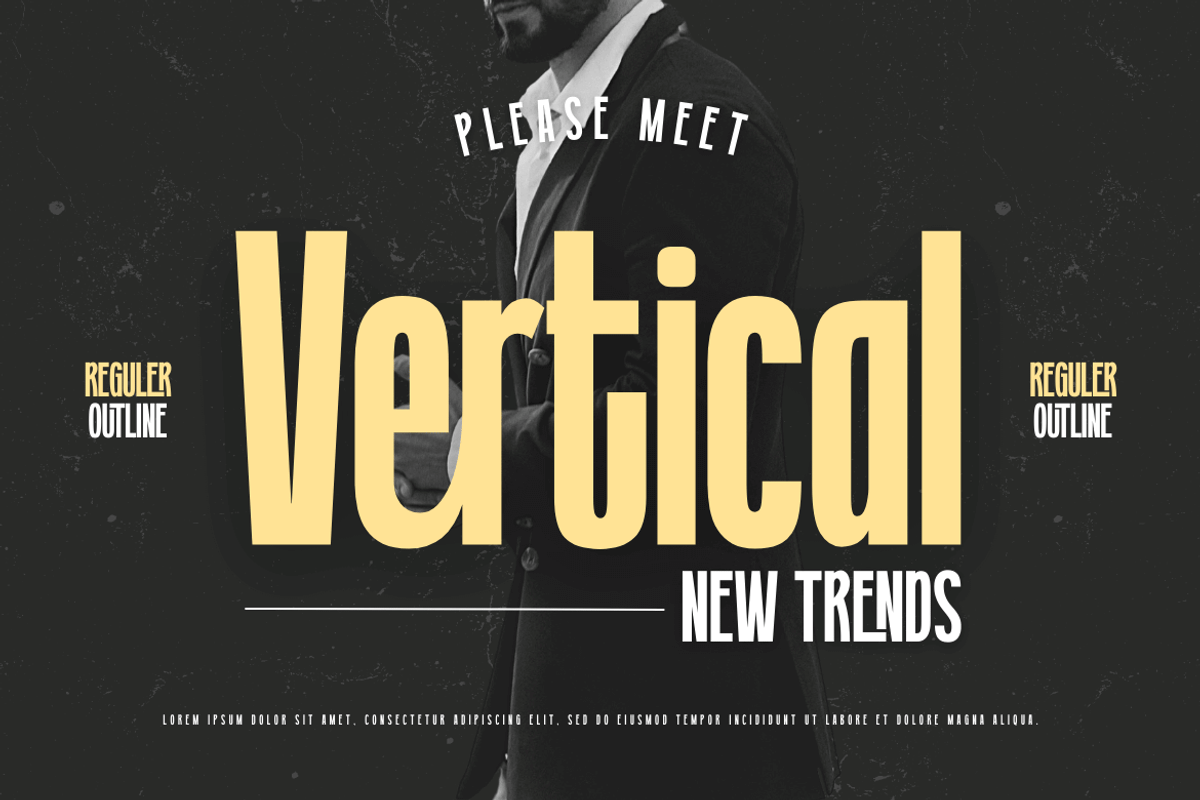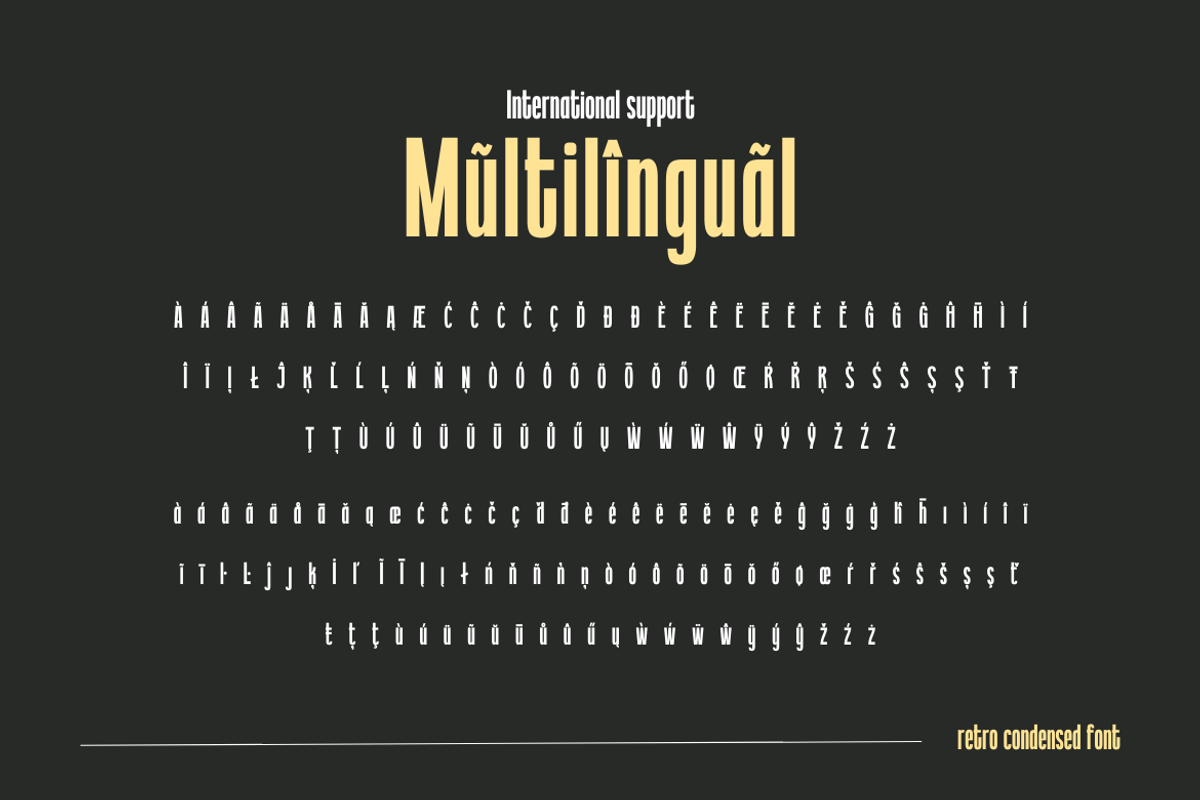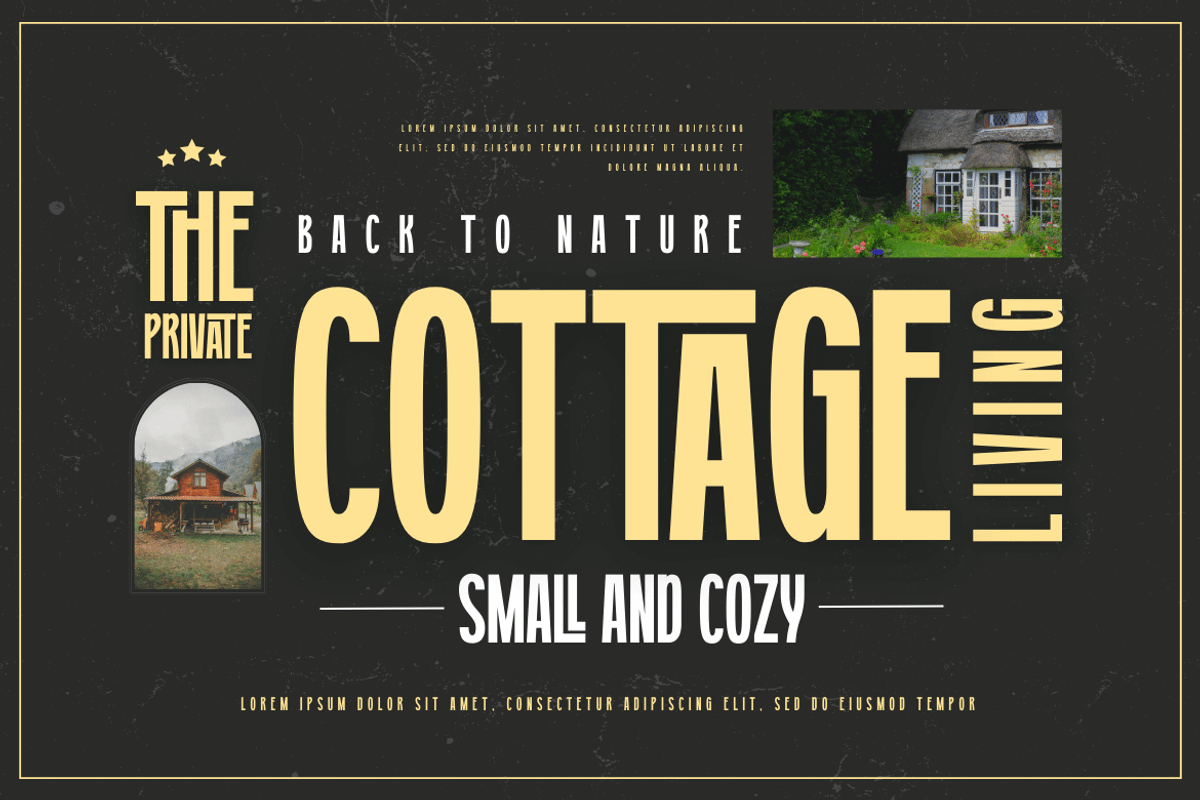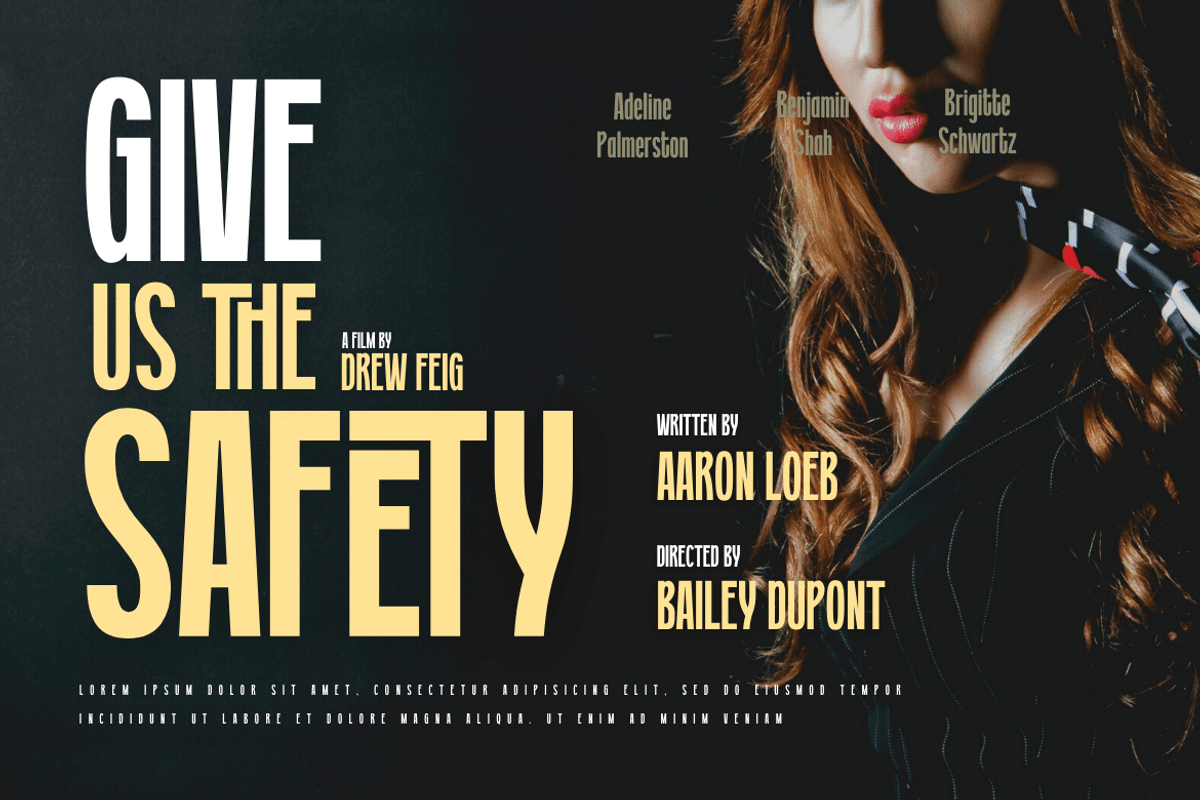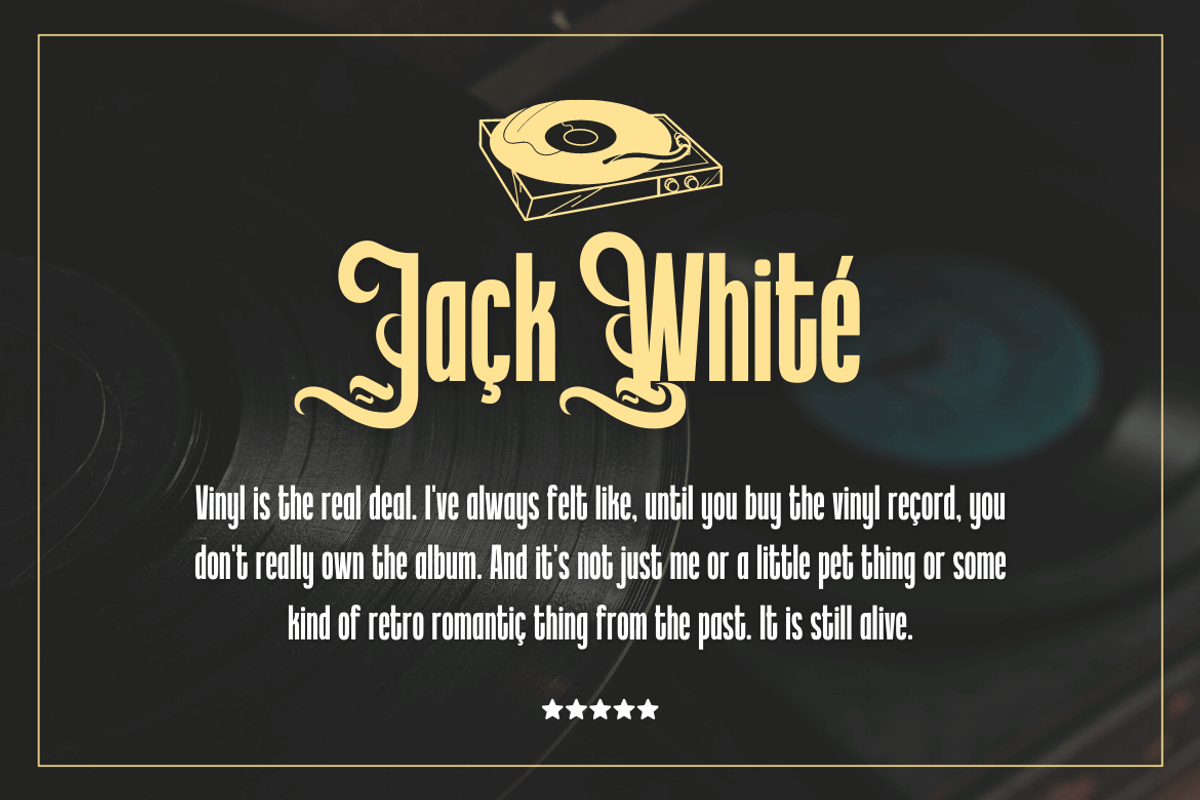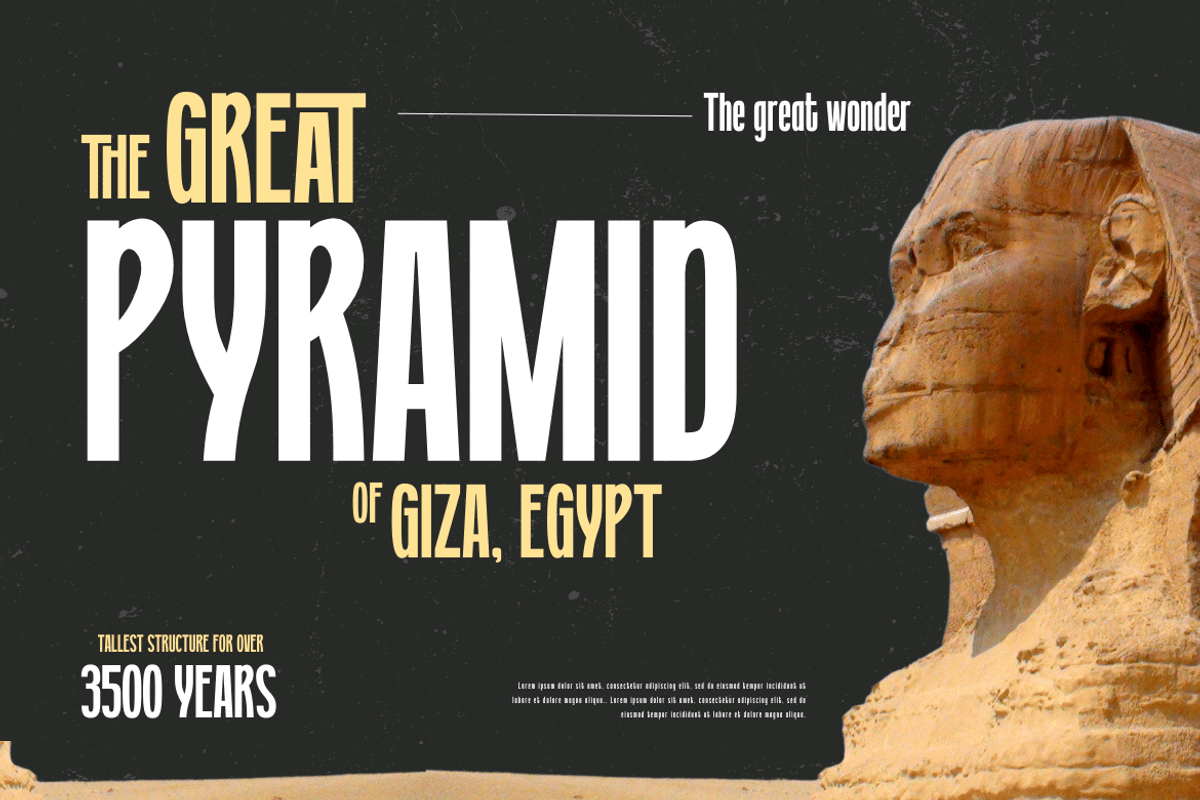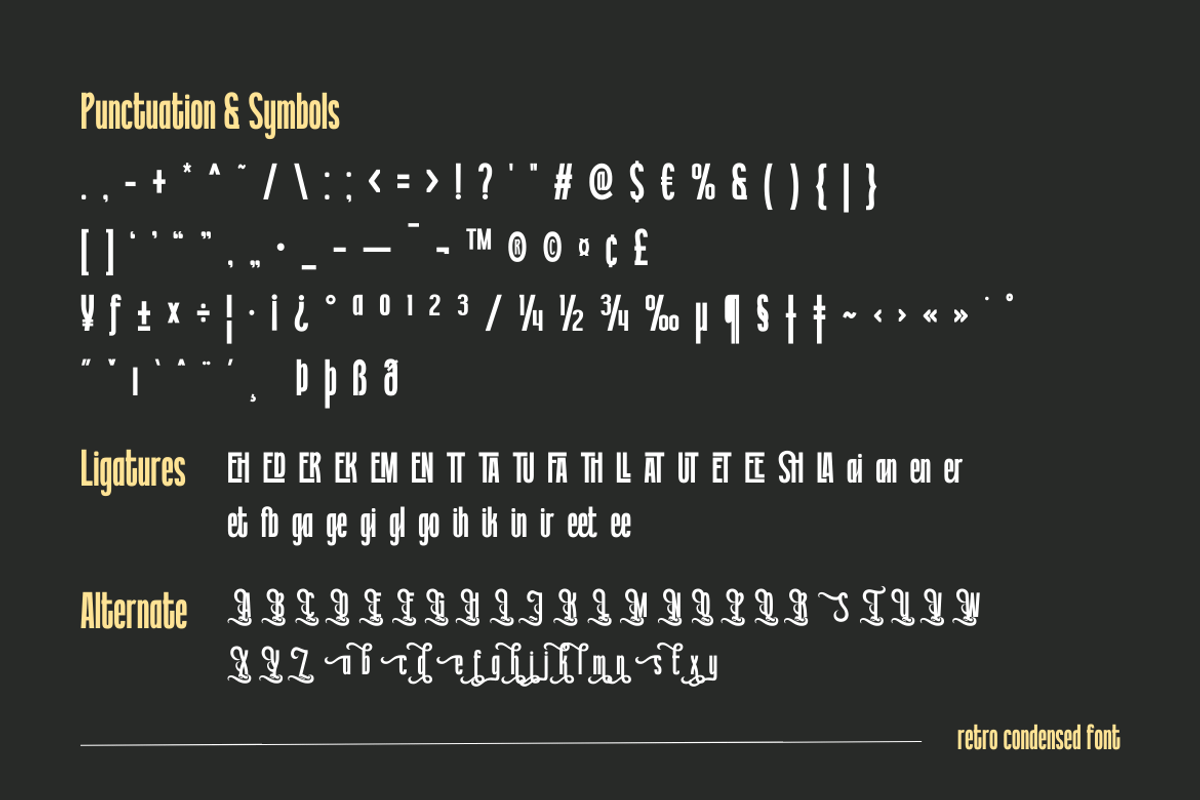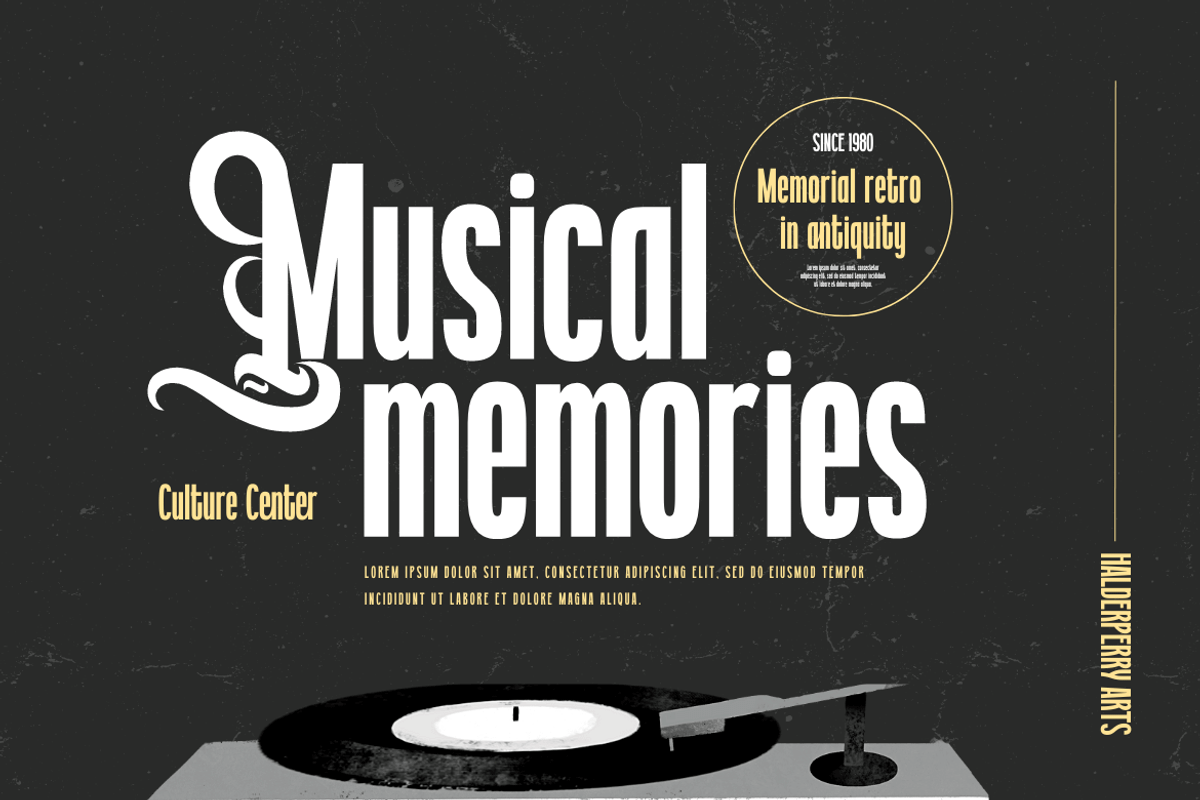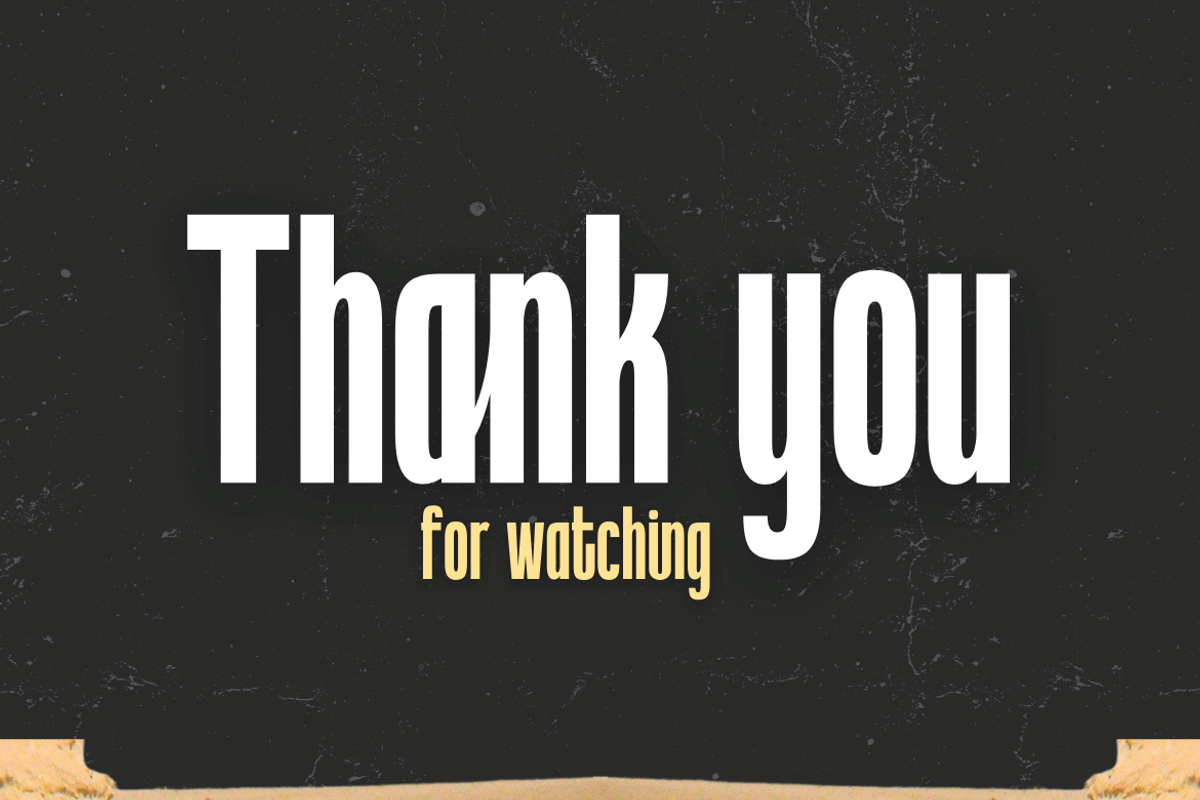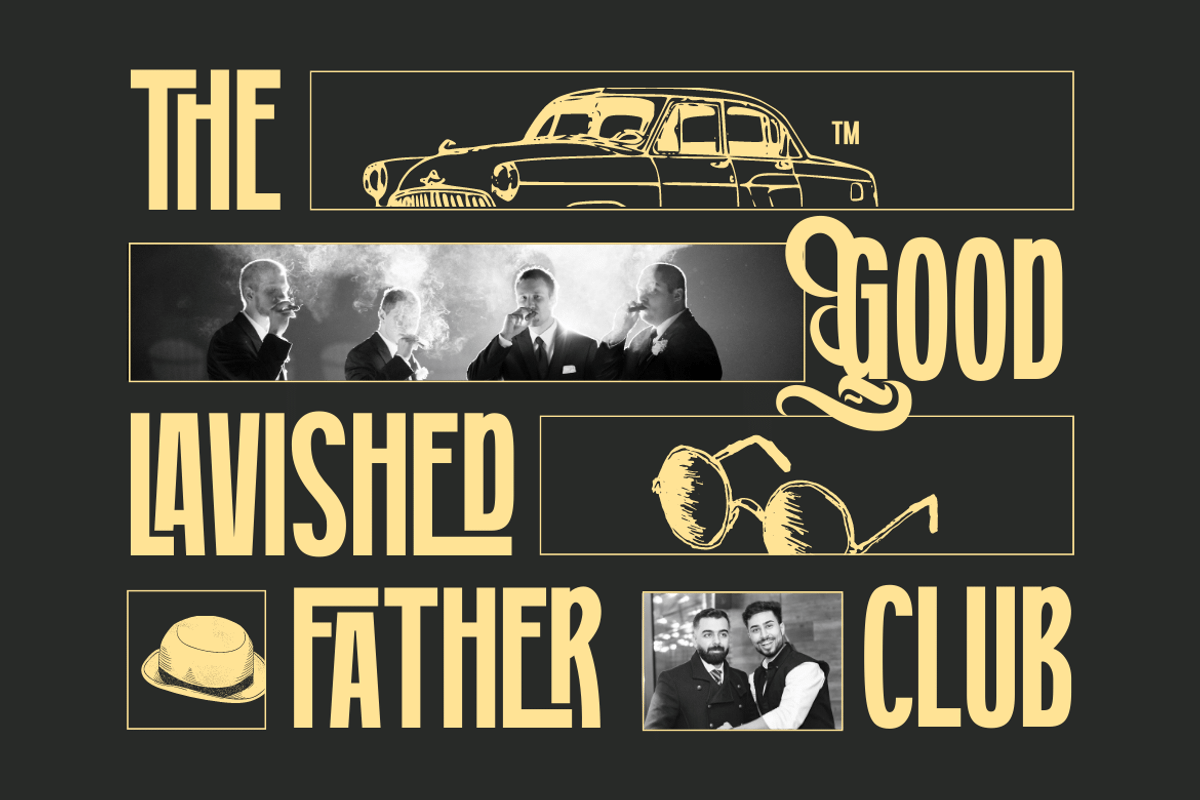
Getoik | Retro Condensed Font
Introducing Getoik, the Retro Condensed Font that will take your designs to the next level. With its clean and smooth edges, this font is perfect for any design project. Getoik features multiple ligatures and alternates, giving you even more design options to choose from.
Whether you’re creating a logo, branding materials, or any other design project, Getoik will add a touch of elegance and sophistication to your work. Its condensed shape allows for maximum impact while taking up minimal space, making it perfect for headlines, titles, and subheadings.
With its versatility and attention to detail, Getoik is a must-have for any designer looking to elevate their work to the next level. So why settle for less when you can have the best? Get Getoik and take your designs to new heights!